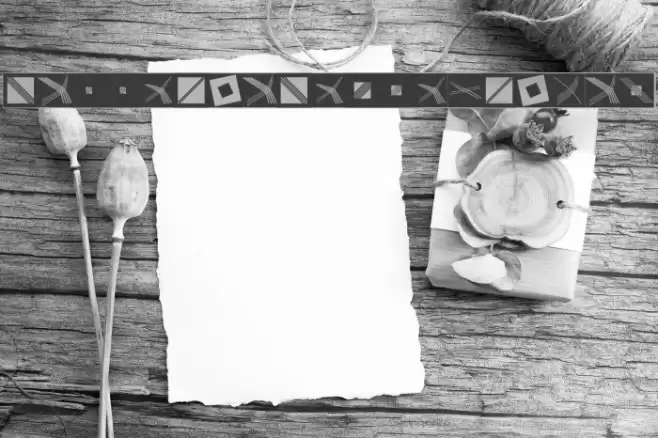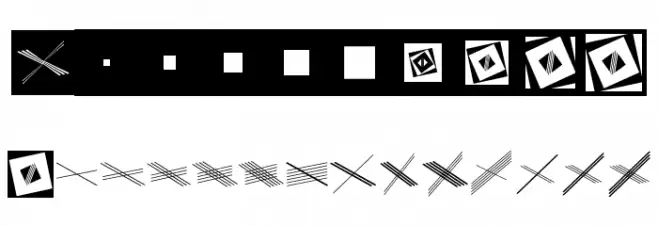
GalleriaGeometricaB Font
GalleriaGeometricaB Description
A highly abstract, geometric font composed of intersecting lines and squares, with each character represented by unique arrangements of straight lines and filled or outlined boxes. The design is non-traditional and prioritizes visual pattern over legibility, resulting in a striking, modern, and experimental appearance.
Abstract geometric font with intersecting lines and squares from Uncategorized fonts.
- Proposed Projects: Art installations, avant-garde posters, album covers, experimental branding, digital art projects.
- Overall Style: Decorative, Modern, Experimental
- Use Case: Logos, Headlines, Posters, Artistic projects